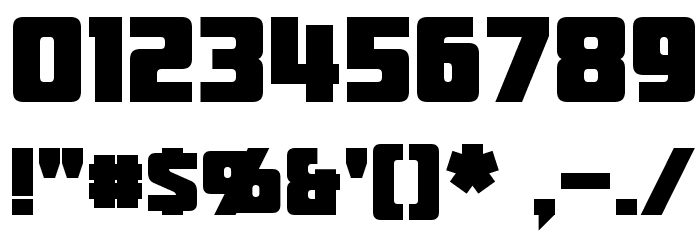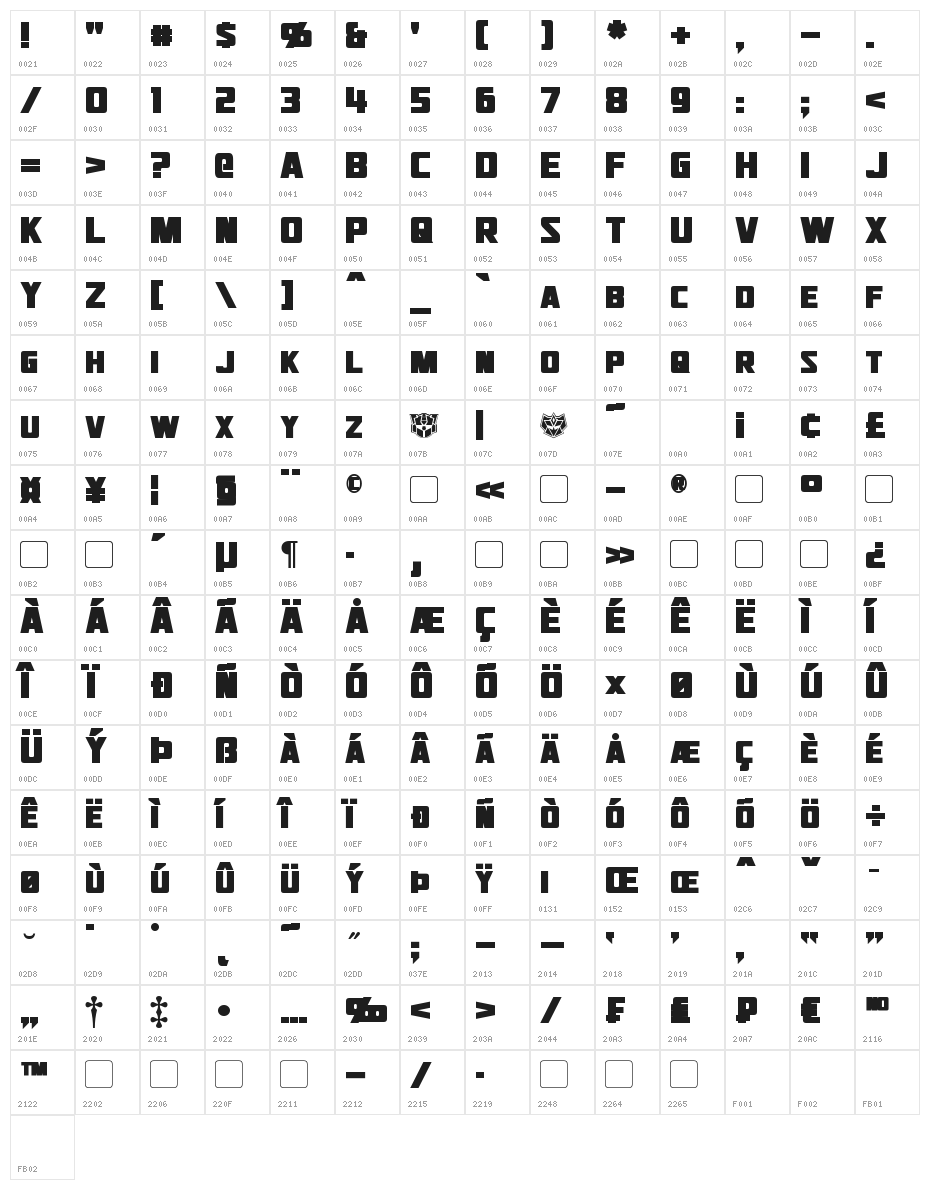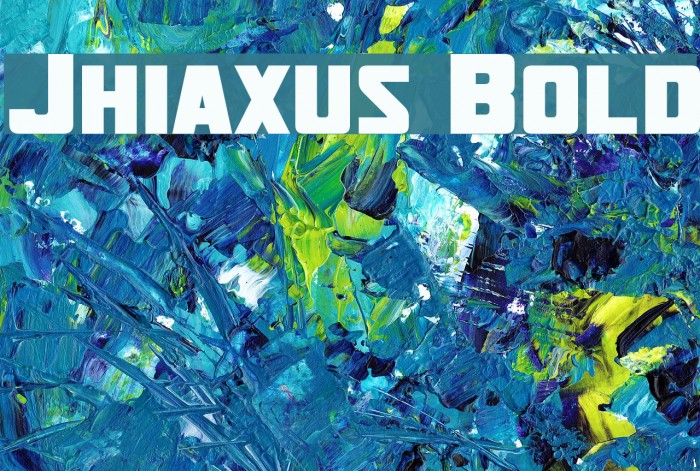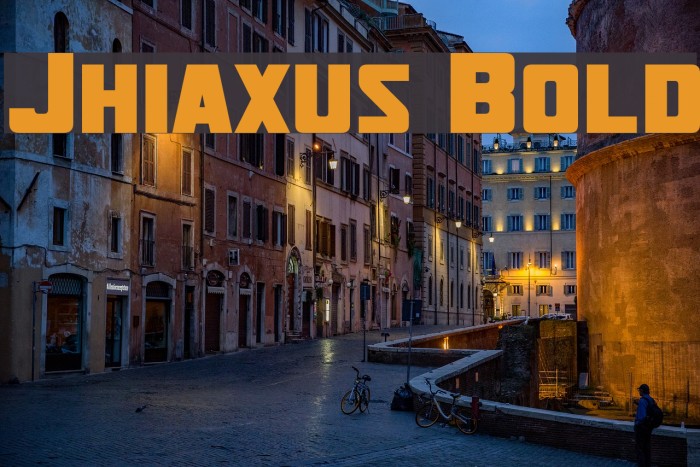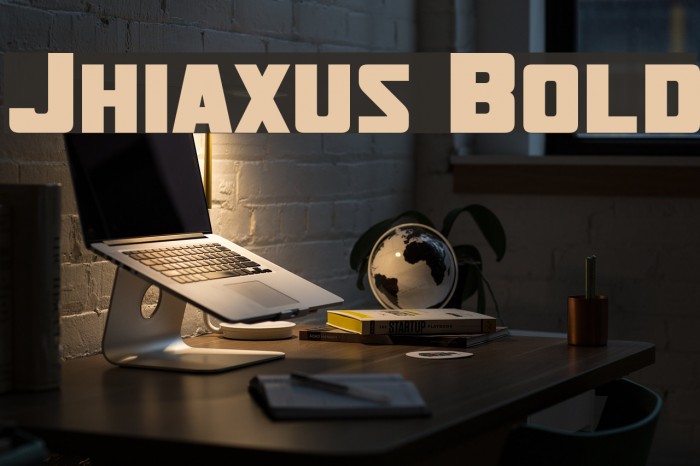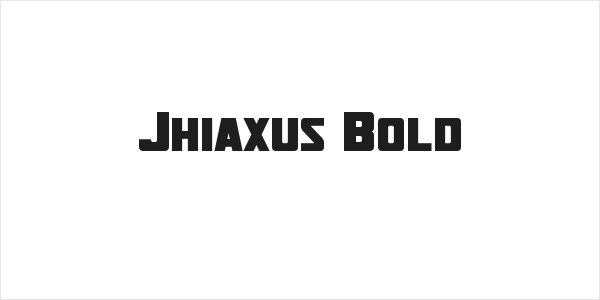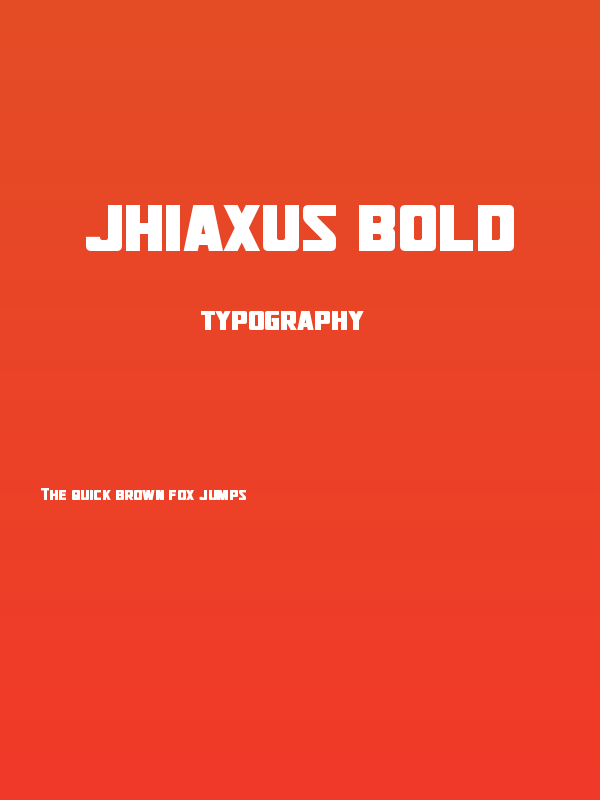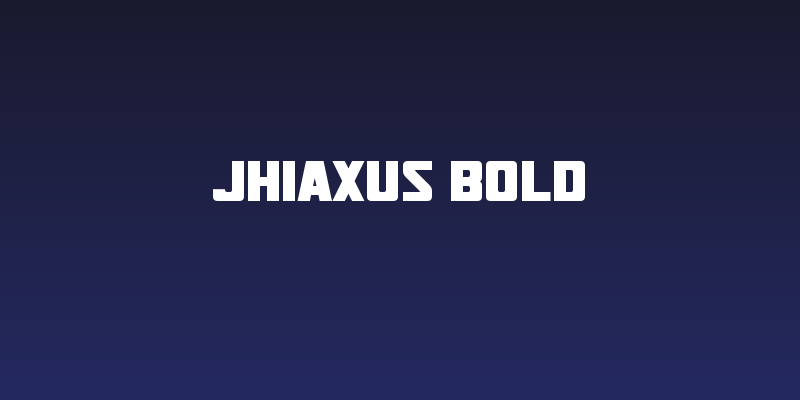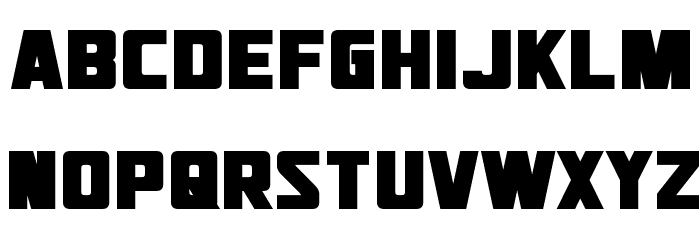
Jhiaxus Bold Font
Jhiaxus Bold Description
This font is characterized by its bold and impactful design, featuring thick, blocky letters with a strong presence. The uppercase and lowercase letters maintain a consistent weight, contributing to a cohesive and unified appearance. The numerals and special characters are equally robust, ensuring readability and emphasis. The geometric shapes and sharp angles give it a modern and industrial feel, making it suitable for projects that require a strong visual impact. The font's design is straightforward yet powerful, with a focus on clarity and strength.
| Proposed Projects | Ideal for headlines, posters, logos, and branding materials that require a strong visual impact. |